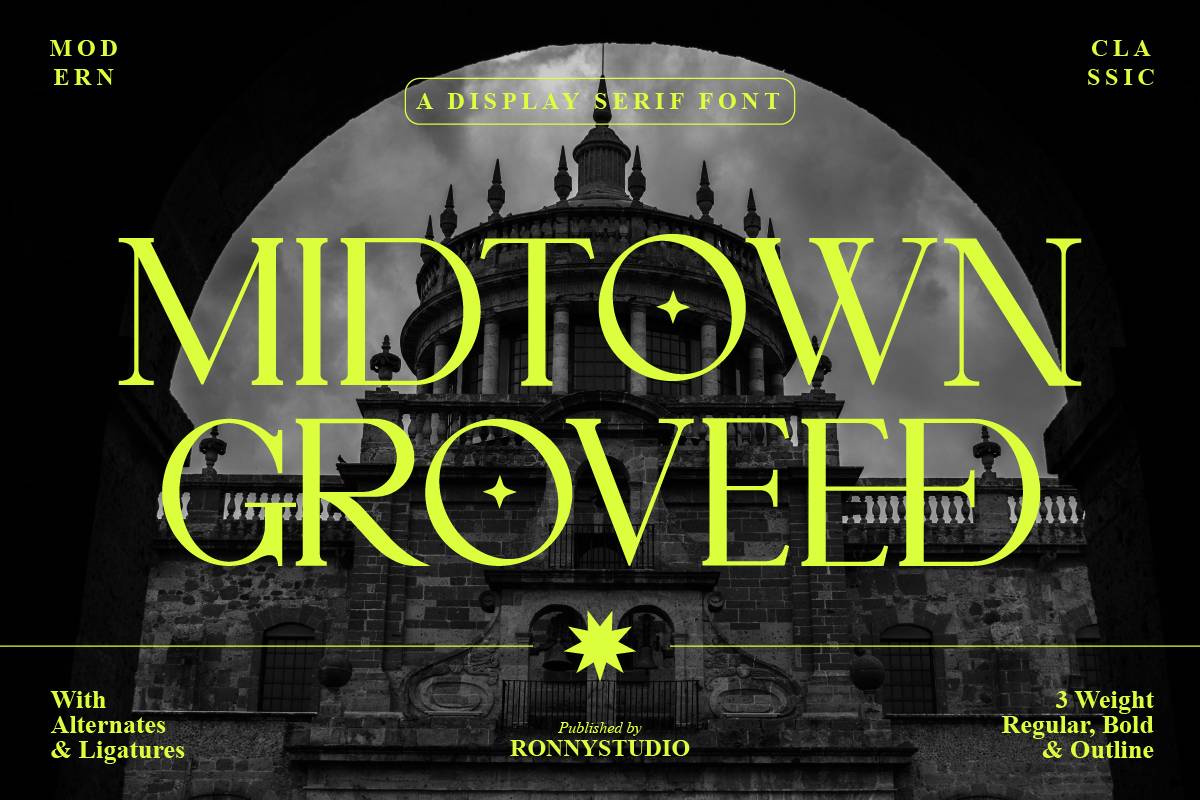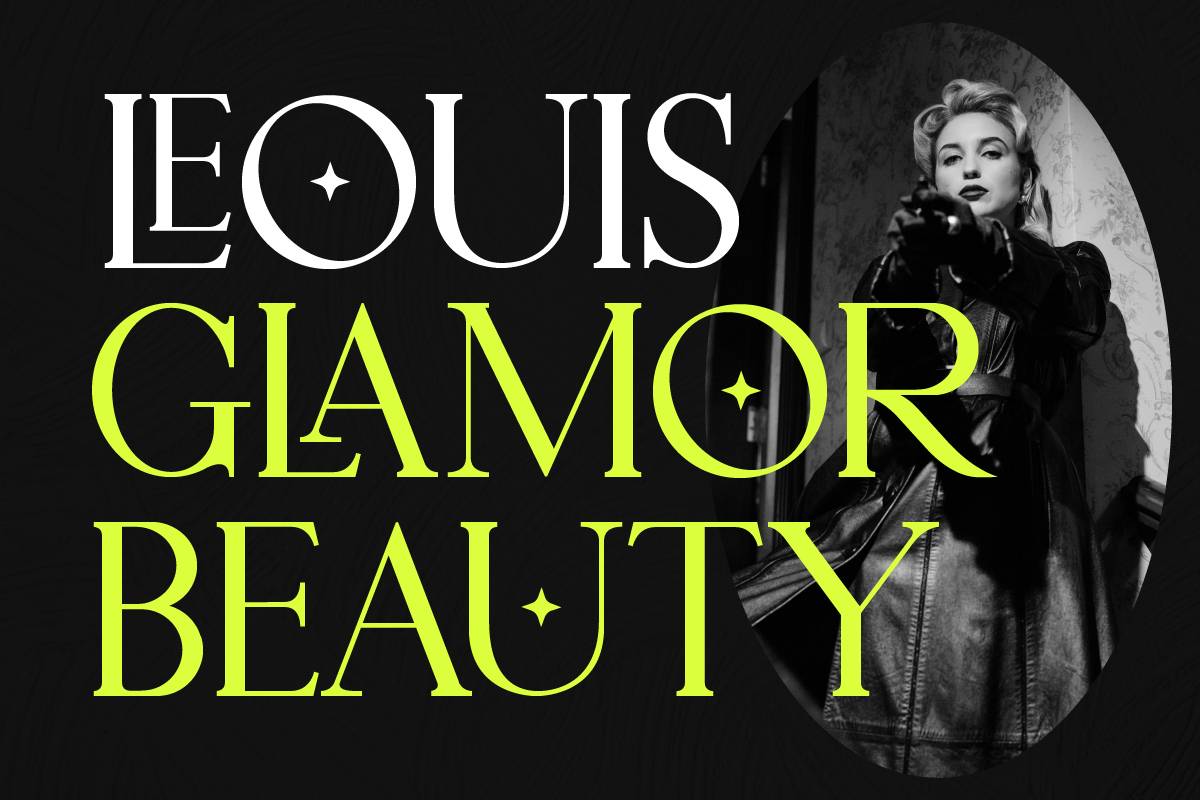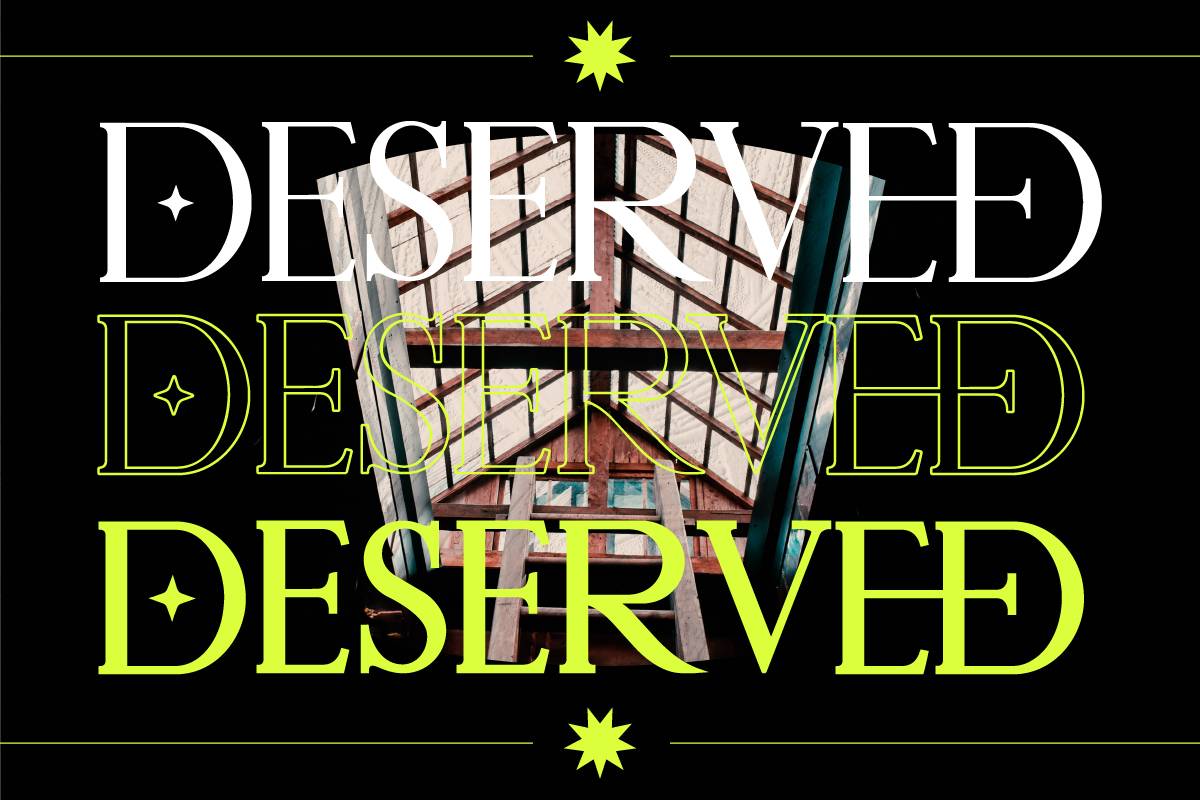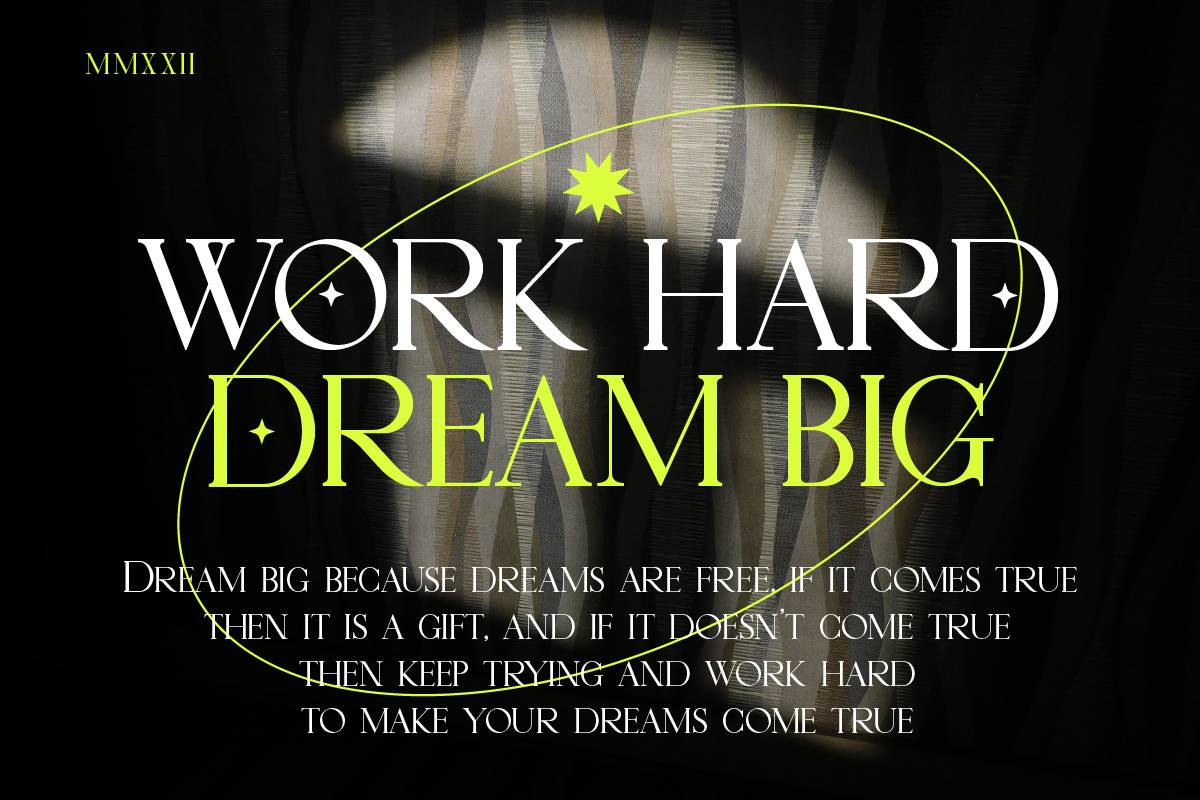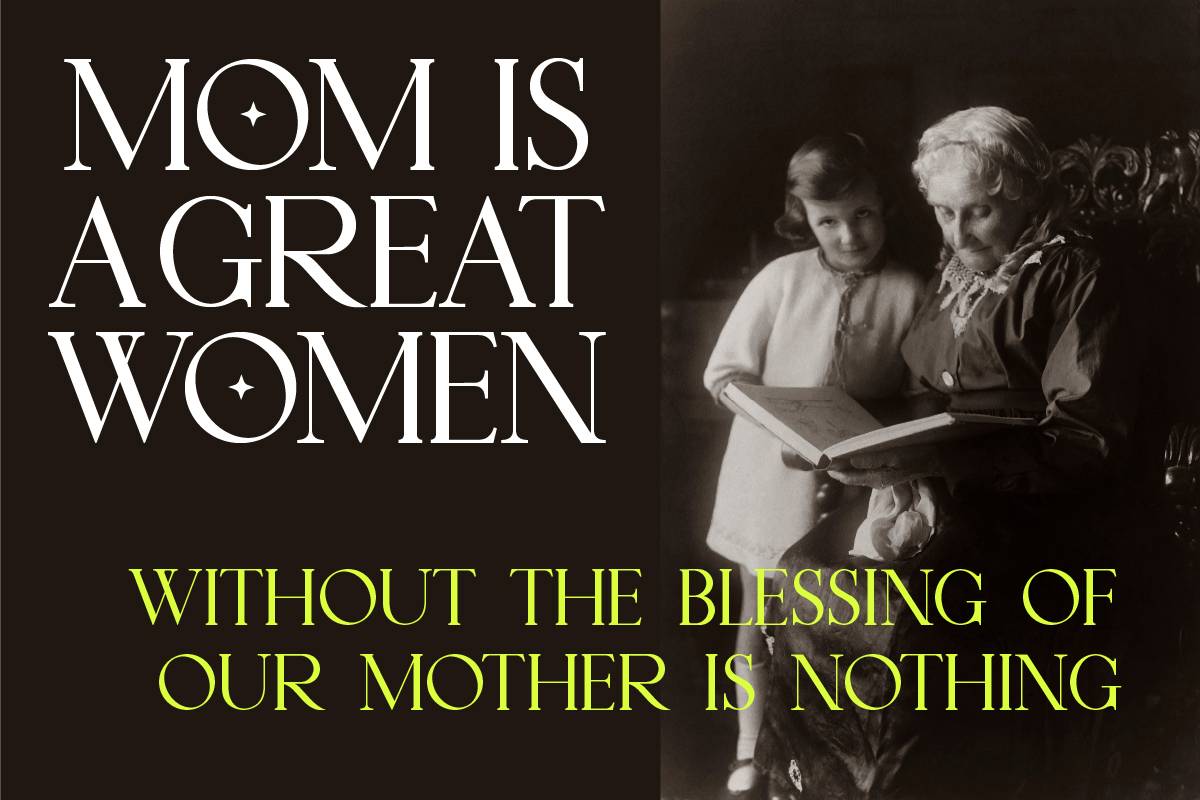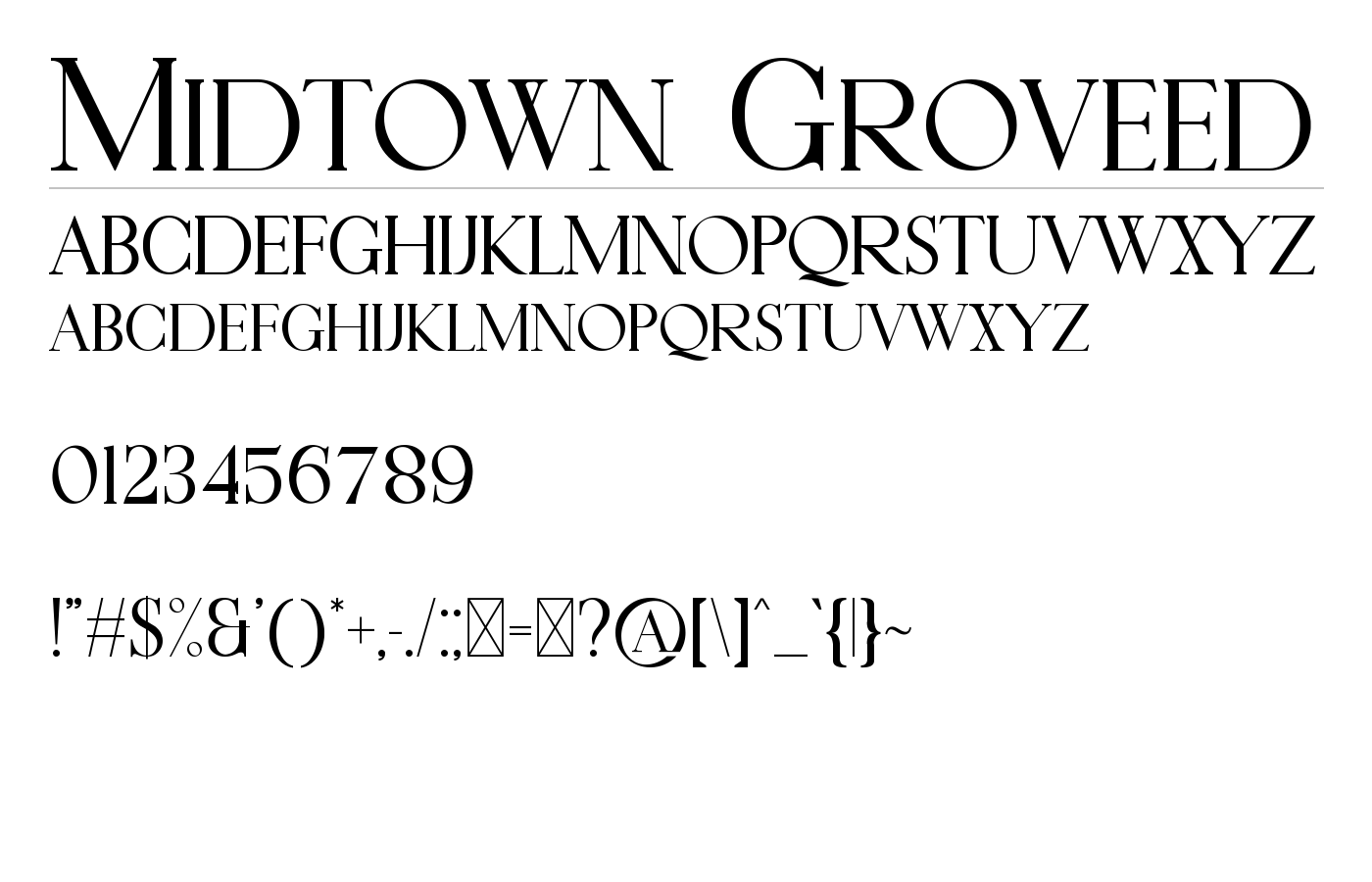
Midtown Groveed is an elegant serif font with a refined, high-contrast design featuring thin, bracketed serifs and tall, slender letterforms. Its sophisticated style and delicate details make it ideal for luxury branding, editorial headlines, and upscale packaging where a classic yet modern look is desired. This font balances timeless grace with contemporary flair, perfect for creating a polished and memorable impression.
Midtown Groveed Font
About Midtown Groveed Font
| Font family | Midtown Groveed Font |
| Designer | Ronny Studio |